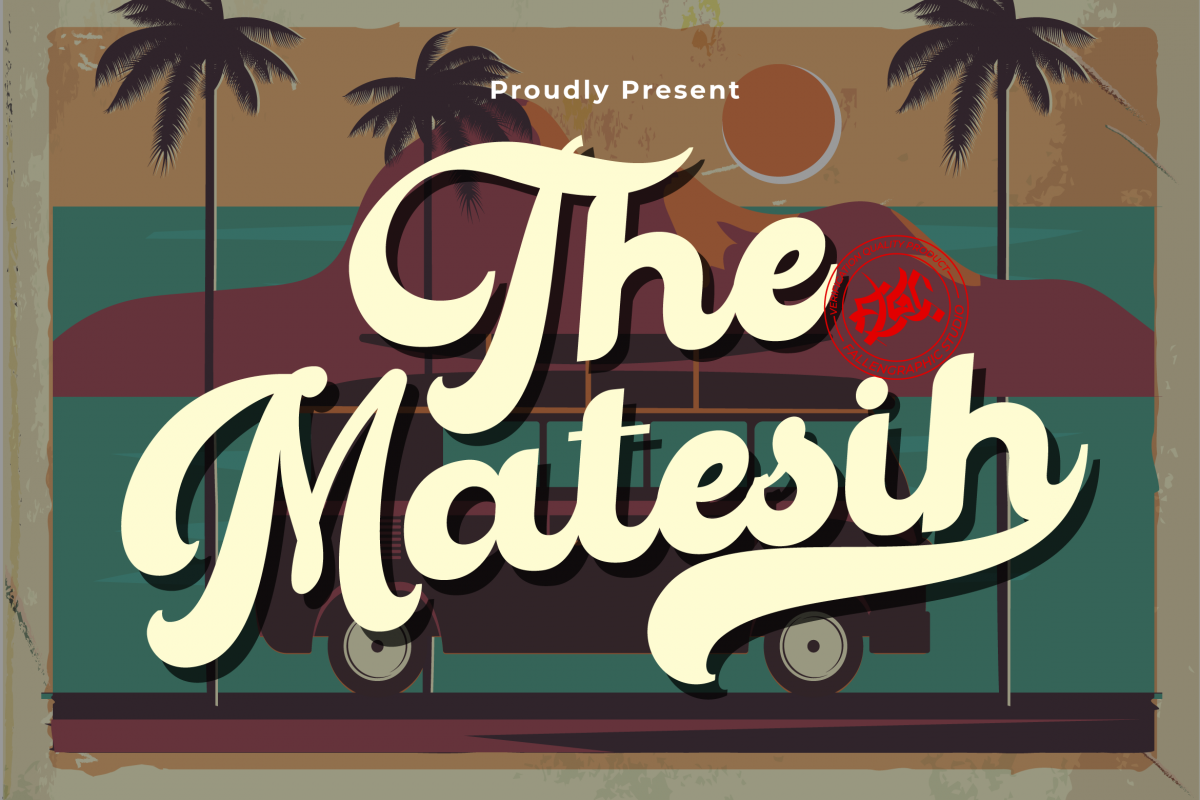
The Matesih bold script
The Matesih
Introducing The Matesih bold script Font. The Matesih is an amazing handwritten font . Made with naturally handwritten. The font will make your design more beautiful and powerful. This font is suitable for any design like branding, quotes and etc. I hope you enjoy it !! Thanks for visiting and downloading my font!what’s inside :